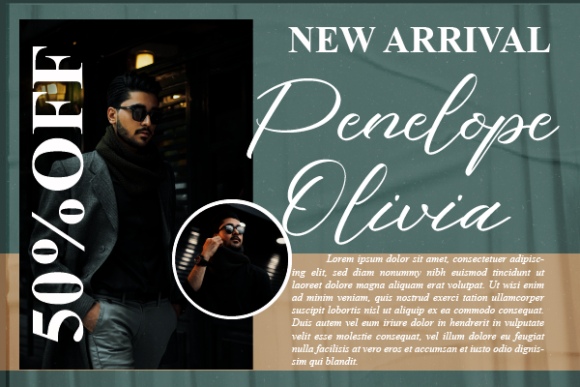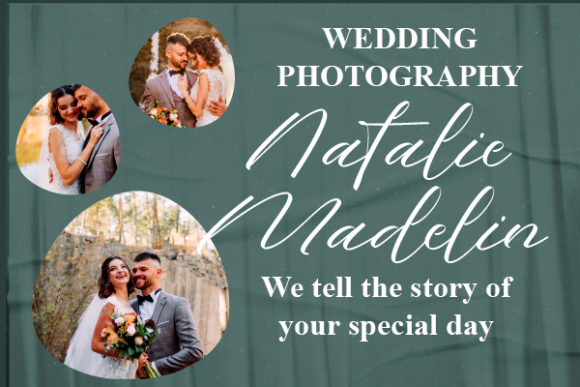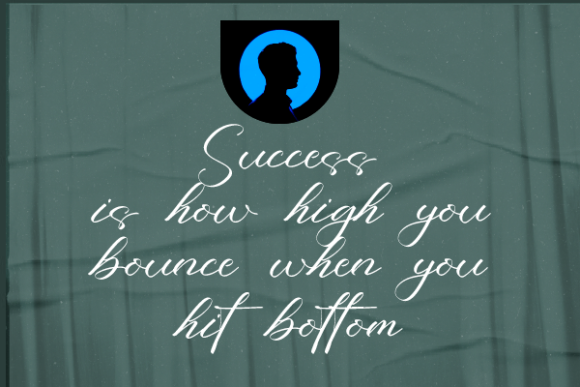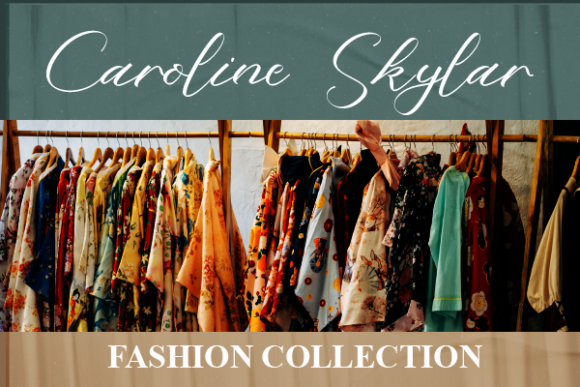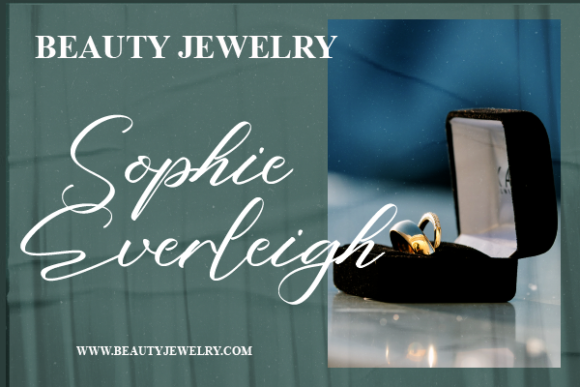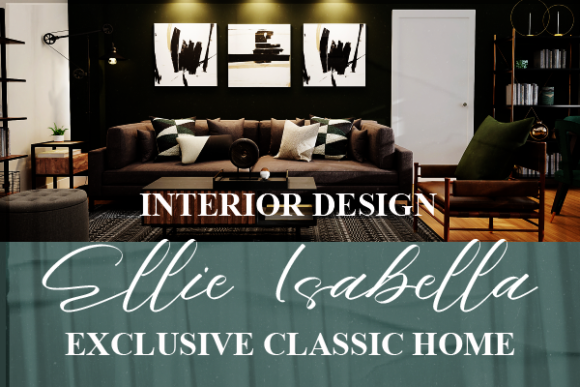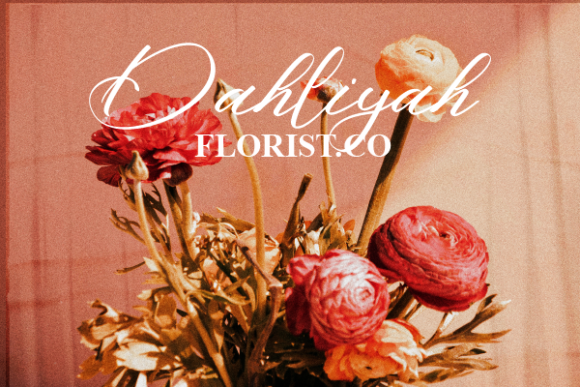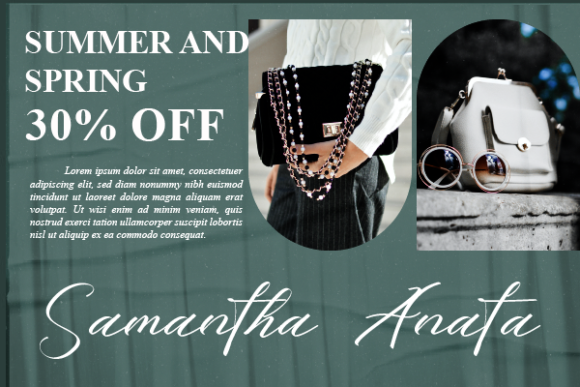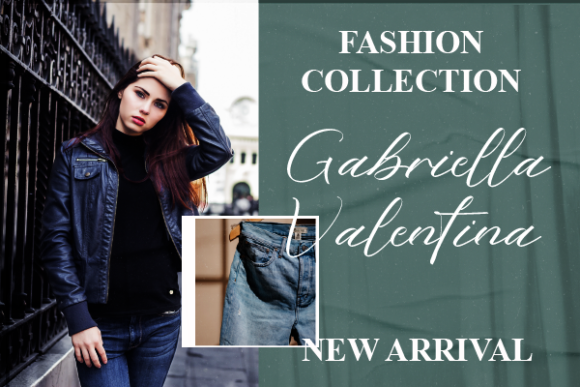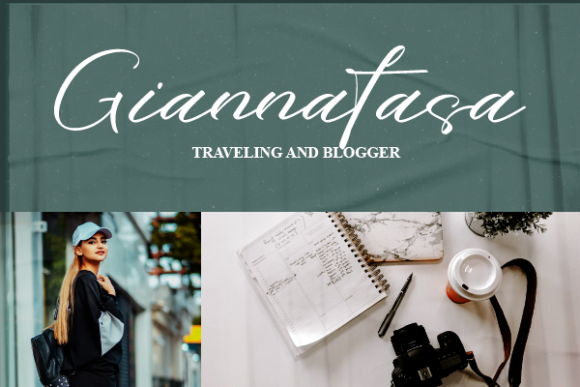
Sabrina Makenna Font
About Sabrina Makenna Font
Sabrina Makenna is not only a font, but an embodiment of delicacy, elegance, and fluidity in handwritten artistry. Every stroke of this font has been meticulously crafted to strike a harmonious balance between beauty and functionality, resulting in a typeface that seamlessly complements a vast array of design concepts.
The captivating charm of Sabrina Makenna transcends the boundaries of mere letters on a page; it breathes life into your creative endeavors. The characters within this font possess an innate grace that adds a touch of sophistication to any project they grace. Their impeccable design is a testament to the dedication that went into creating a truly remarkable typeface.
What sets Sabrina Makenna apart is not just its visual appeal, but its ability to evoke emotions and tell stories. Whether you’re crafting an invitation, a logo, a book cover, or any other design, Sabrina Makenna will infuse it with a sense of artistry that captivates the viewer’s eye and engages their imagination.
As you incorporate Sabrina Makenna into your most imaginative ideas, you’ll witness a transformation. Your creations will come alive with a newfound vitality, each curve and loop enhancing the overall aesthetic. The font becomes a partner in your creative journey, elevating your concepts from ordinary to extraordinary.
In a world where first impressions matter, Sabrina Makenna has the power to make a lasting impact. Its delicate yet confident demeanor exudes a timeless allure that resonates with various styles and themes. When you choose Sabrina Makenna, you’re not just selecting a font – you’re selecting a catalyst for inspiration and a conduit for artistic expression.
Embrace Sabrina Makenna in your design projects, and watch as it weaves its magic, transforming your visions into tangible works of art. Let its flowing elegance and balanced characters breathe life into your creativity, making every project a masterpiece that leaves a lasting impression on all who behold it.